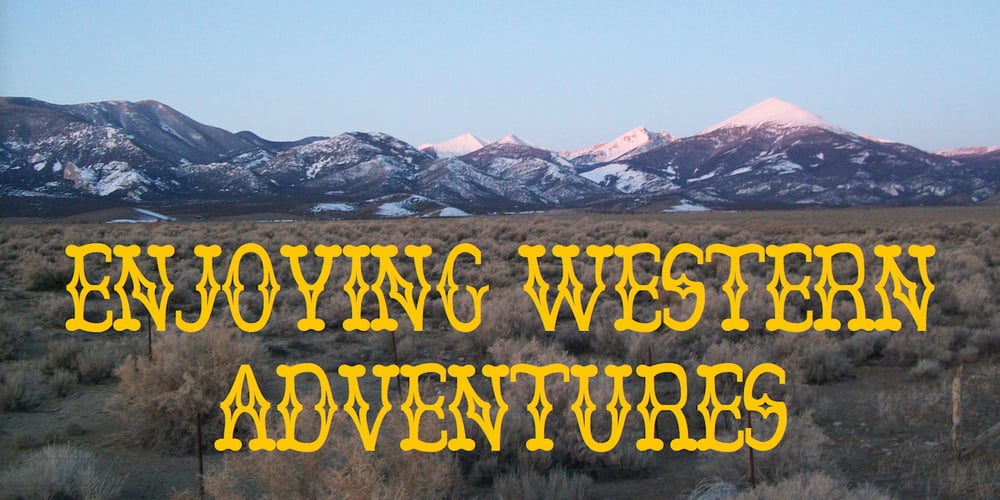
Vglee Font Family was designed by Robert Schenk and published by Ingrimayne Type. Vglee contains 2 styles and family package options. With its split serifs, Vglee looks like it could be a copy of an “Old West” font but it is not. It was constructed by taking a motif and applying it regardless of consequences. Vglee does not have lower-case letters but it does include a full set of Western and Central European accented characters. Its distinctive, odd appearance can be useful in small doses for decorative purposes.The VgleeStar style contains only the ornament. It is intended to be used in layers with Vglee.